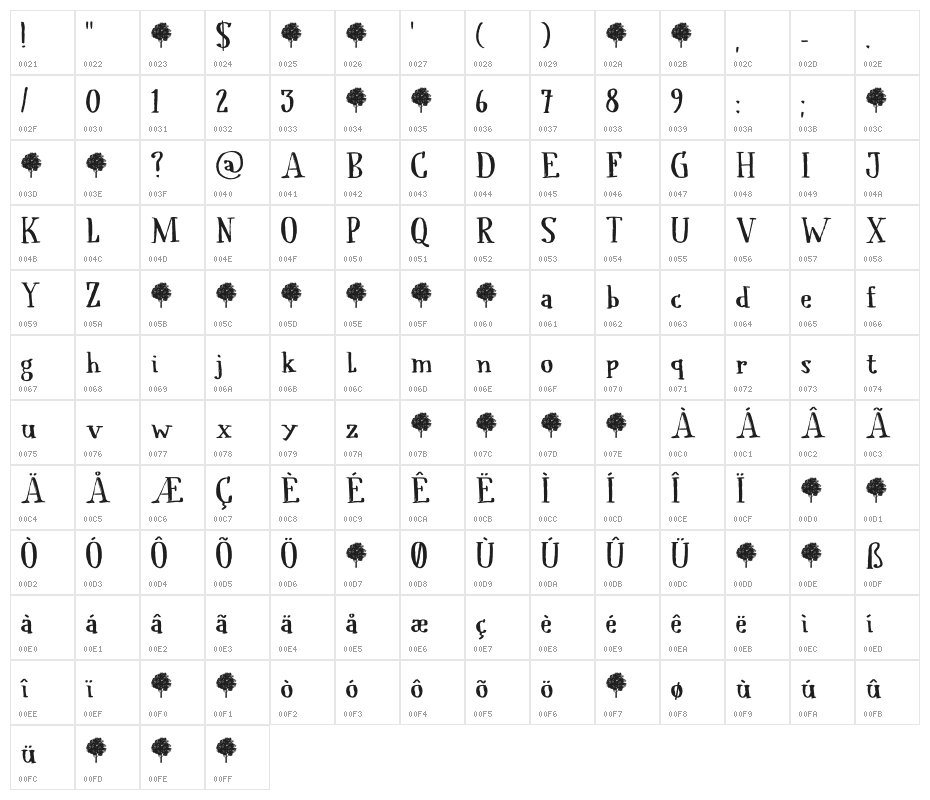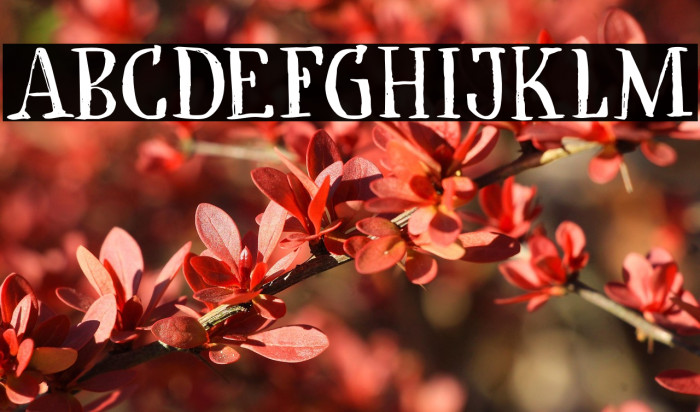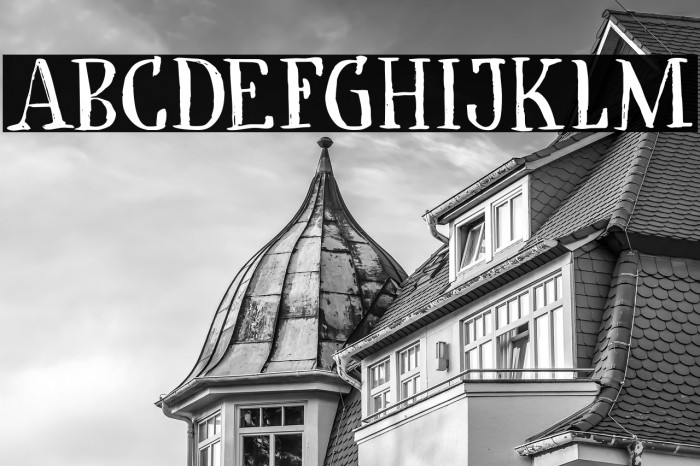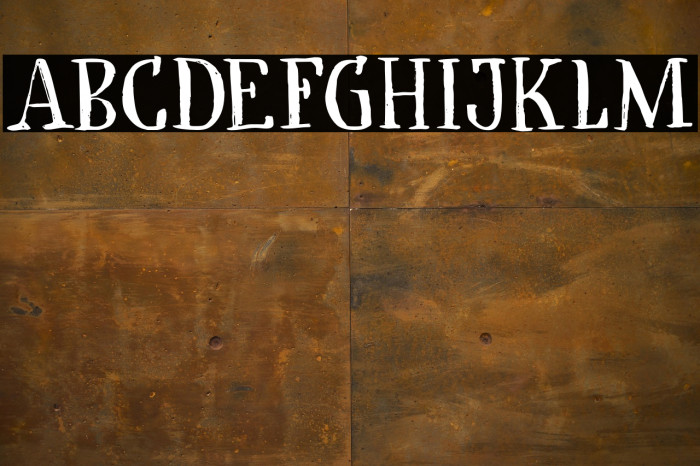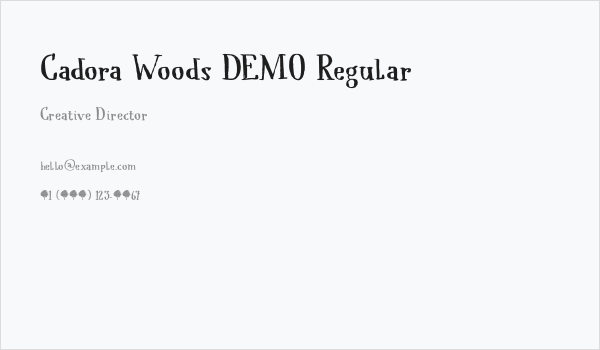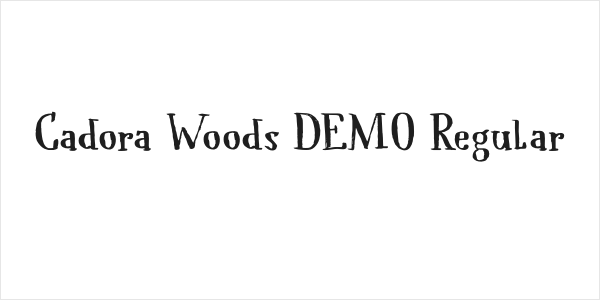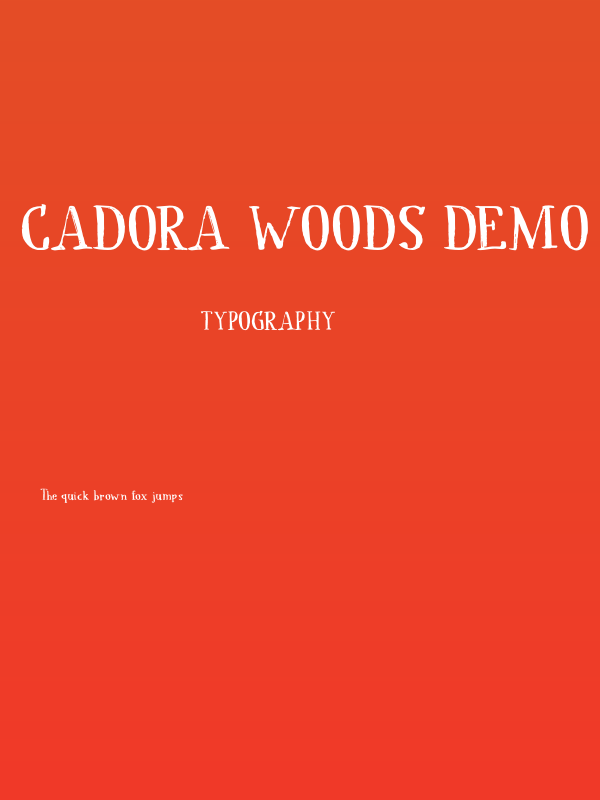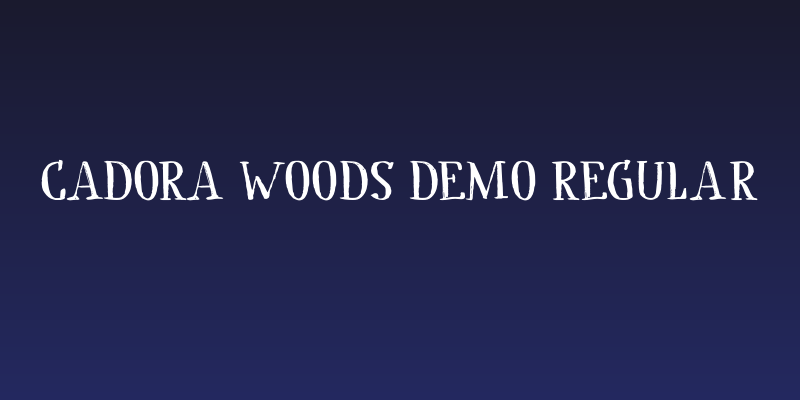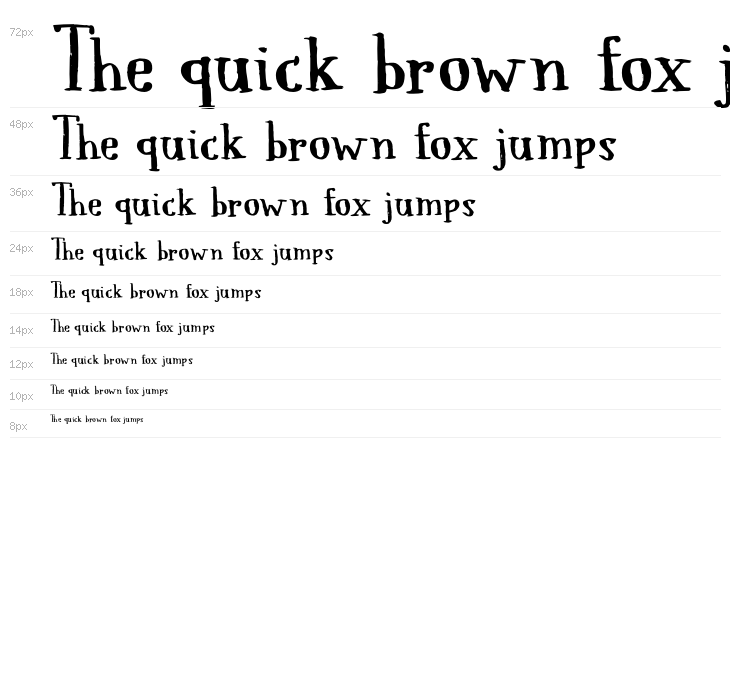
Cadora Woods DEMO Regular Font
Cadora Woods DEMO Regular Description
This font features a rustic and organic style, reminiscent of hand-carved woodblock letters. The characters have a slightly uneven and textured appearance, giving them a natural and earthy feel. The uppercase letters are bold and prominent, while the lowercase letters maintain a consistent style with a touch of whimsy. The numbers are distinct and match the overall aesthetic, and the inclusion of tree symbols adds a unique decorative element. The font's design is well-suited for projects that require a natural or vintage touch, such as eco-friendly branding, outdoor event posters, or artisanal product packaging.
| Overall Style | Rustic, Organic |
| Use Case | Logos, Posters, Packaging |
| Proposed Projects | Eco-friendly branding, outdoor event posters, artisanal product packaging. |